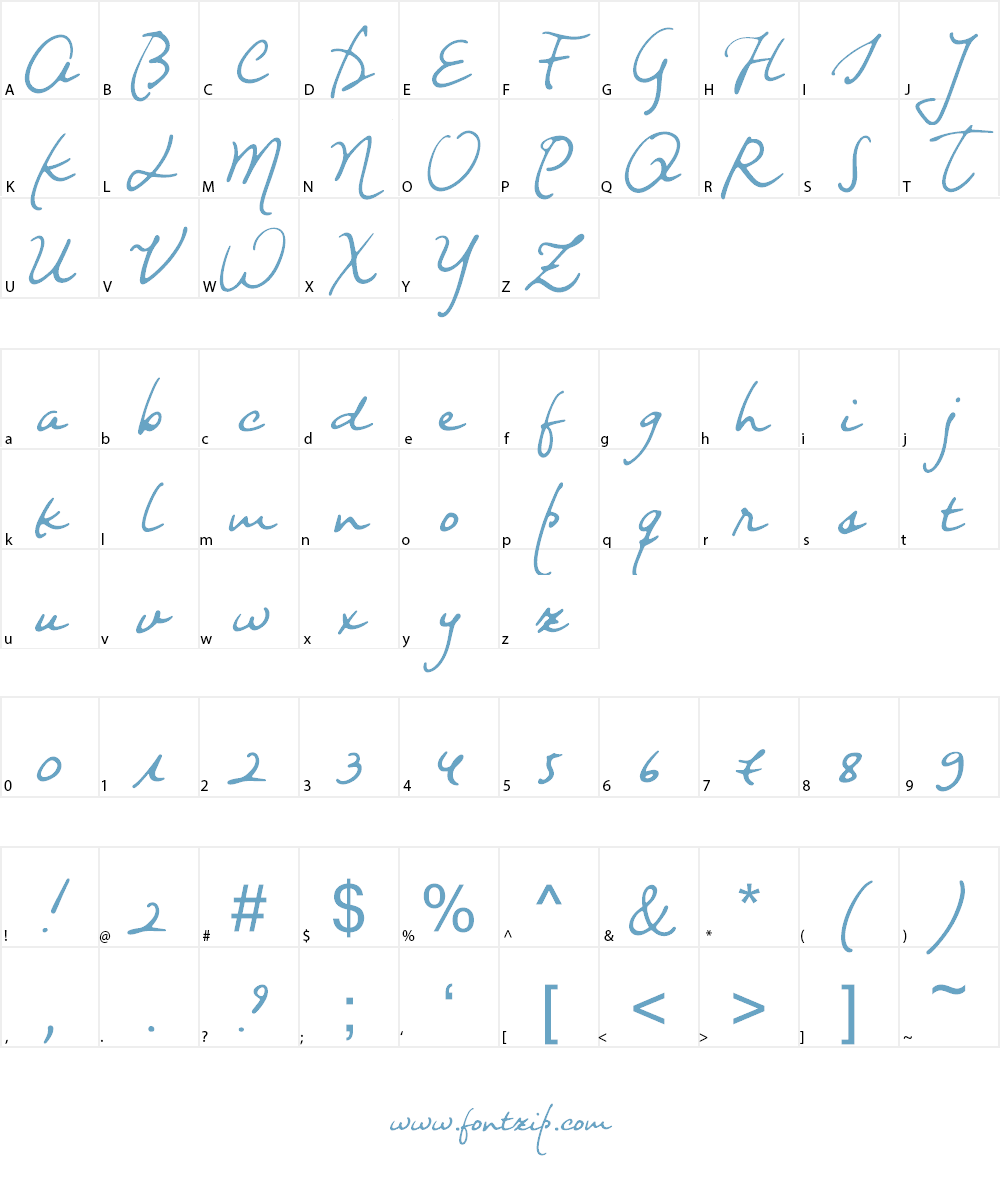
This is a free (for private use) *demo* version of Night Wind Sent, an elegant handwritten font. In its full version, it includes:
- A-Z, a-z, 0-9, accents punctuation and symbols
- Ligatures
- Stylistic Alternates
- Small Caps
- Swashes
- Extra versions of the font: underline and strikethrough
- Ornaments with which to decorate your text